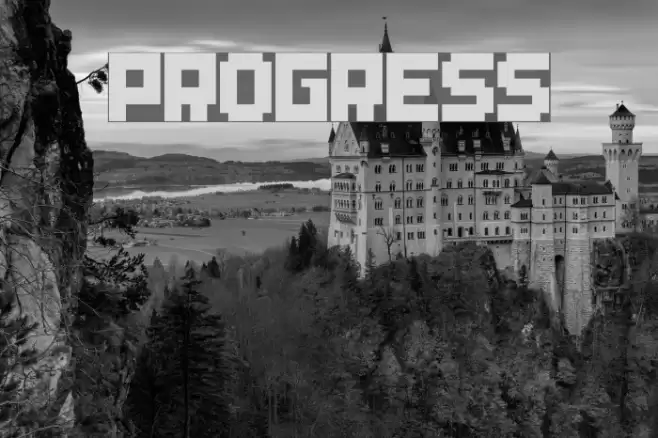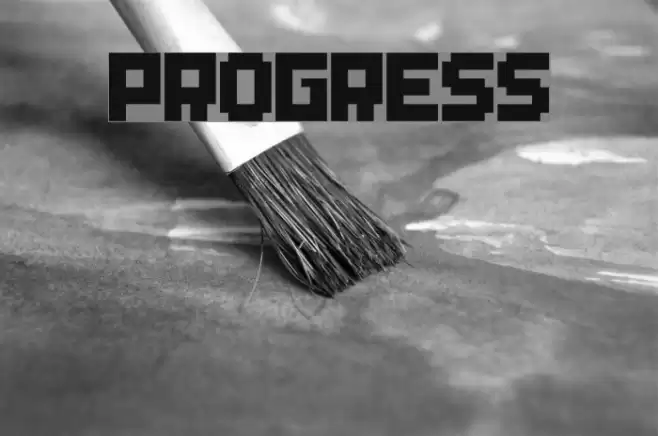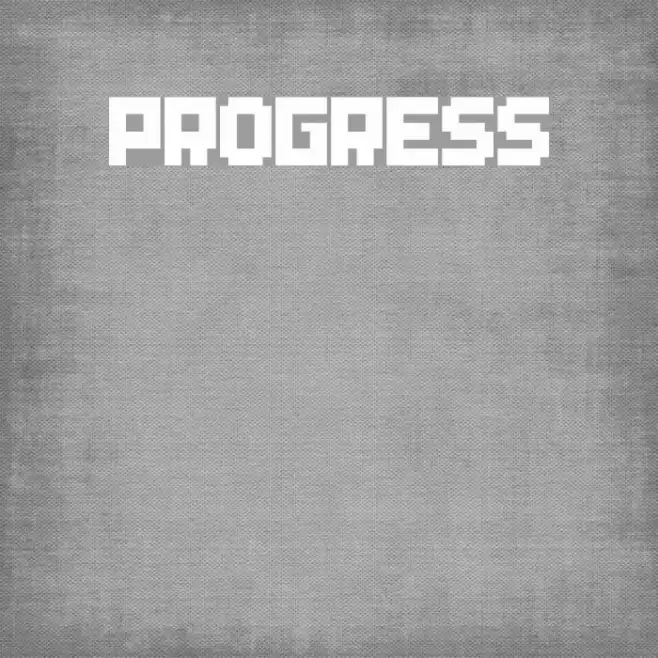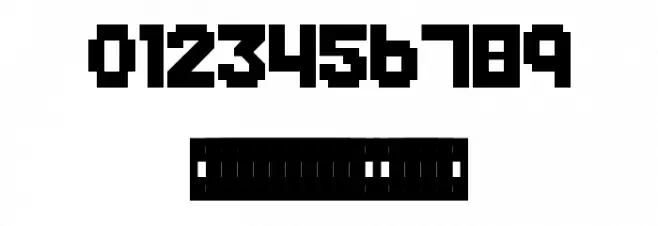
PROGRESS Font
PROGRESS Description
This font features a bold, geometric design with a distinctly digital and pixelated aesthetic. The uppercase letters are blocky and robust, giving a sense of strength and modernity. The lowercase letters maintain a similar geometric style but are slightly more condensed, providing a nice contrast to the uppercase. Numbers and special characters follow the same pixelated theme, ensuring consistency across all elements. The overall appearance is reminiscent of retro video game graphics, making it ideal for projects that require a nostalgic or tech-inspired look.
A bold, pixelated font with a digital, retro aesthetic from Futuristic fonts.
- Proposed Projects: Ideal for video game design, tech-themed posters, digital art, and retro-inspired branding.
- Overall Style: Modern, Retro